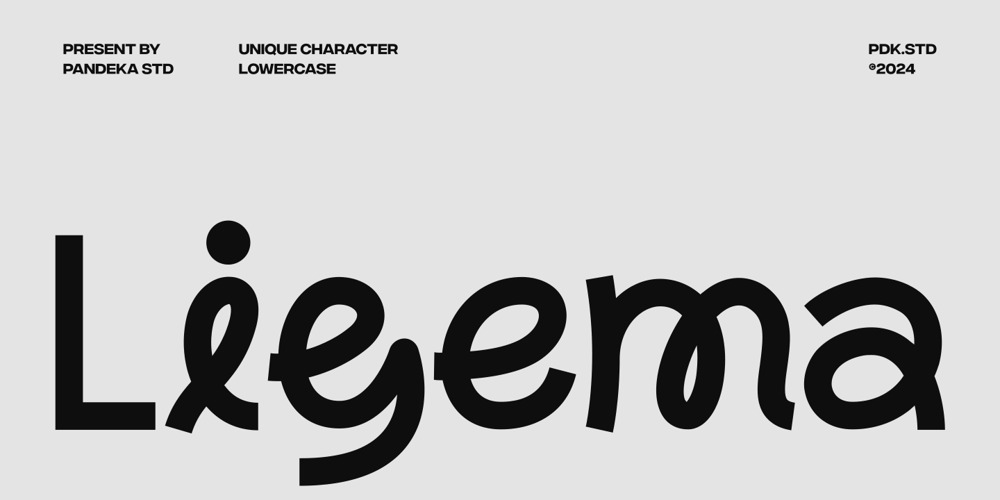
Ligema Font Family was designed by Sagara Nararya and published by Pandeka Studio. Ligema contains 1 styles and family package options. Introducing Ligema! – Casual sans that is the perfect combination of strength & play.Ligema is an experimental and unique font with stylish curves and a modern visual design. Ligema is here to make your projects more stunning and eye-catching.Ligema is the perfect choice for any creative endeavor! Whether it’s logos, advertisements, watermarks on photos, stationery, branding projects, magazine layouts, invitations, corporate branding, product designs, labels, business projects, or any other project that needs an elegant touch, Ligema has got you covered.What’s Included? Ligema Main Files Unique Gylph Letters Instructions (Access special characters in all apps, even in Cricut Design) Accessible in Adobe Illustrator, Adobe Photoshop, Microsoft Word even Canva! PUA Encoded Characters. Fully accessible without additional design software Language Support: Danish, English, Estonian, Filipino, Finnish, French, Friulian, Galician, German, Gusii, Indonesian, Irish, Italian, Luxembourgish, Norwegian Bokmål, Norwegian Nynorsk, Nyankole, Oromo, Portuguese, Romansh, Rombo, Spanish, Swedish, Swiss-German, Uzbek (Latin)Feel free to follow, like and share. Thanks so much for checking out my shop!Have a great day!Pandeka Studio